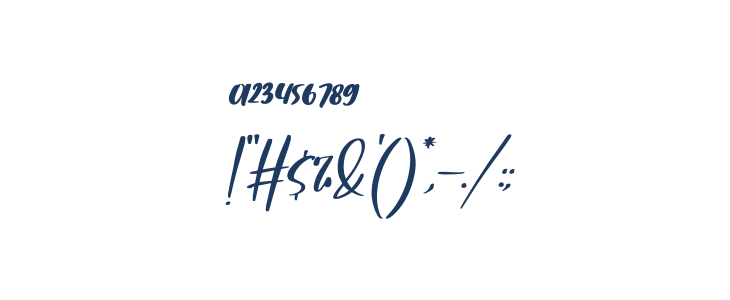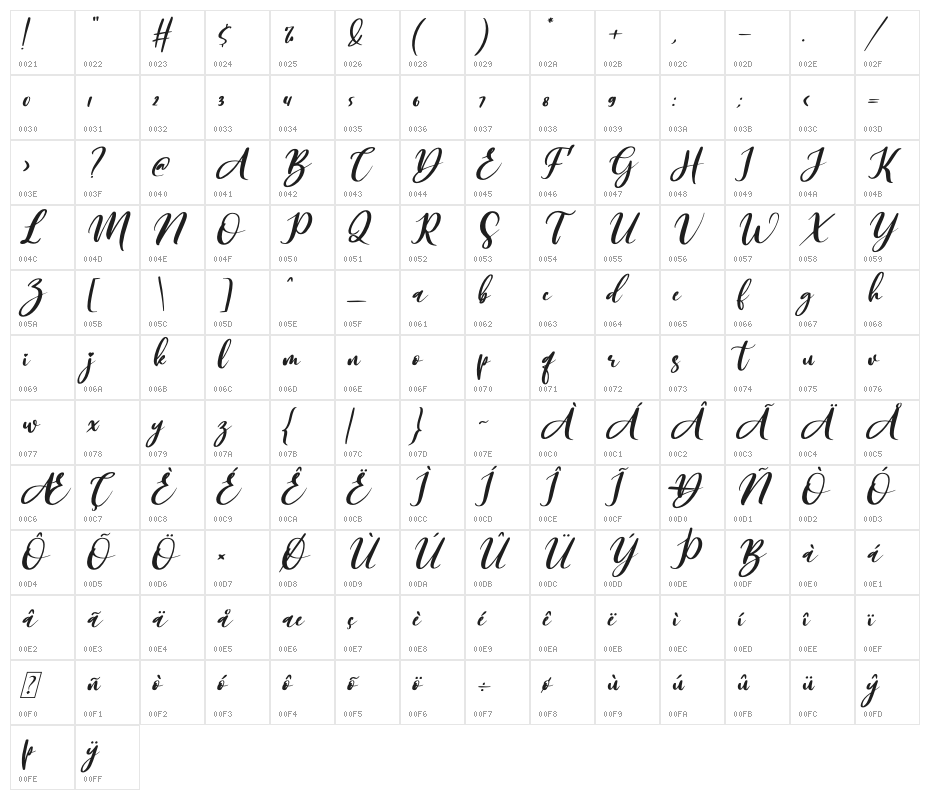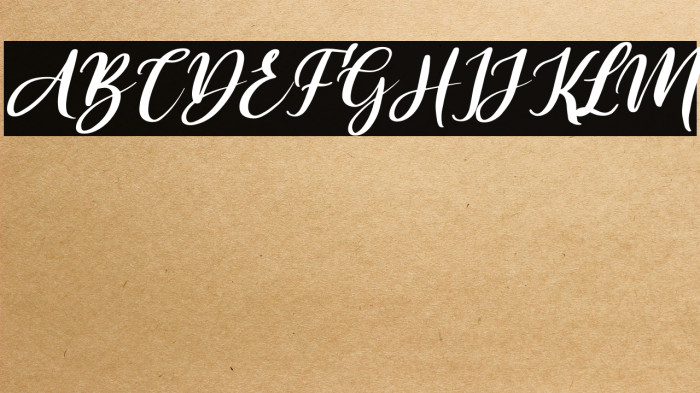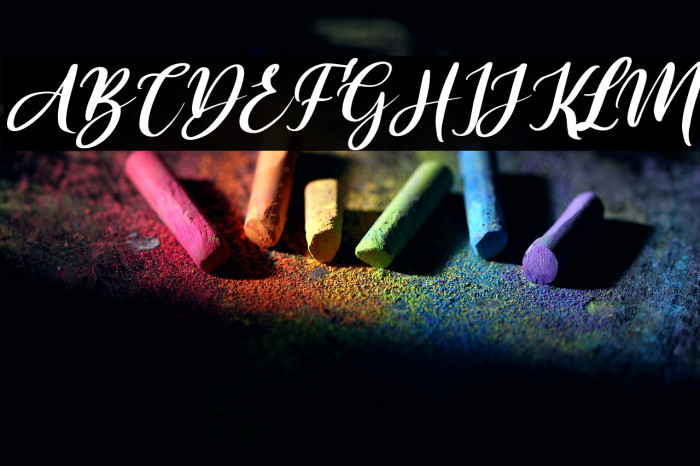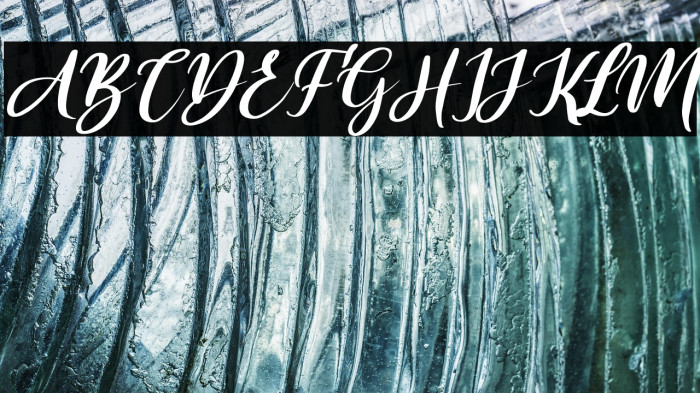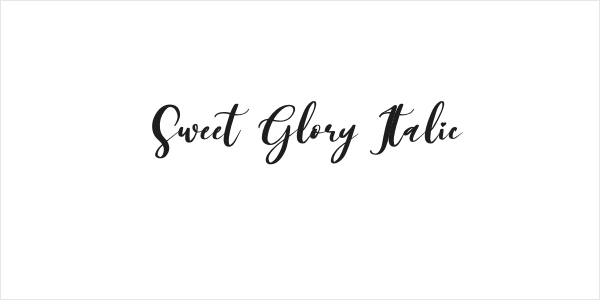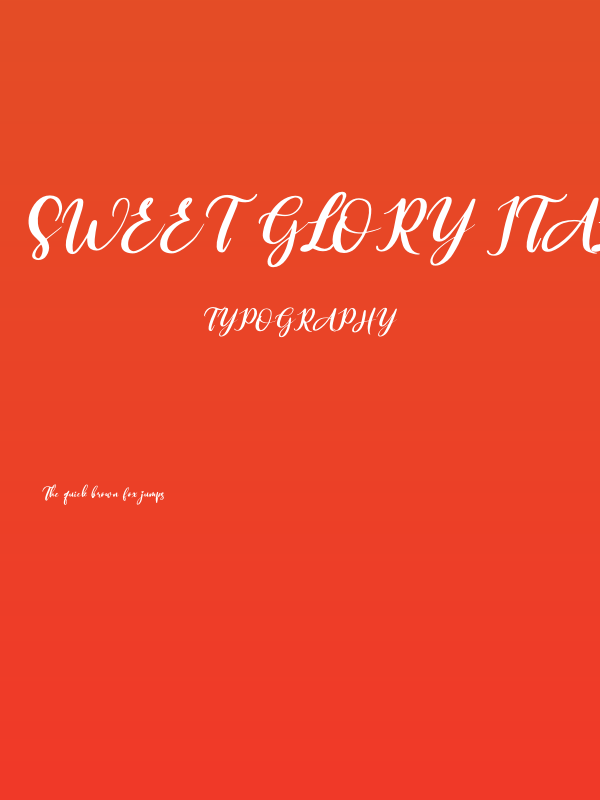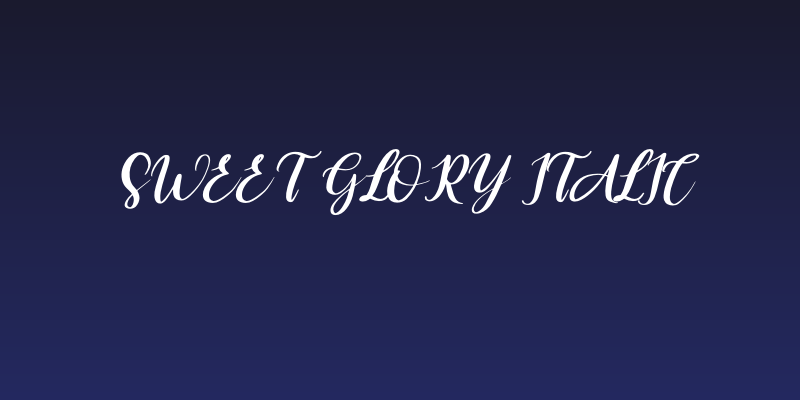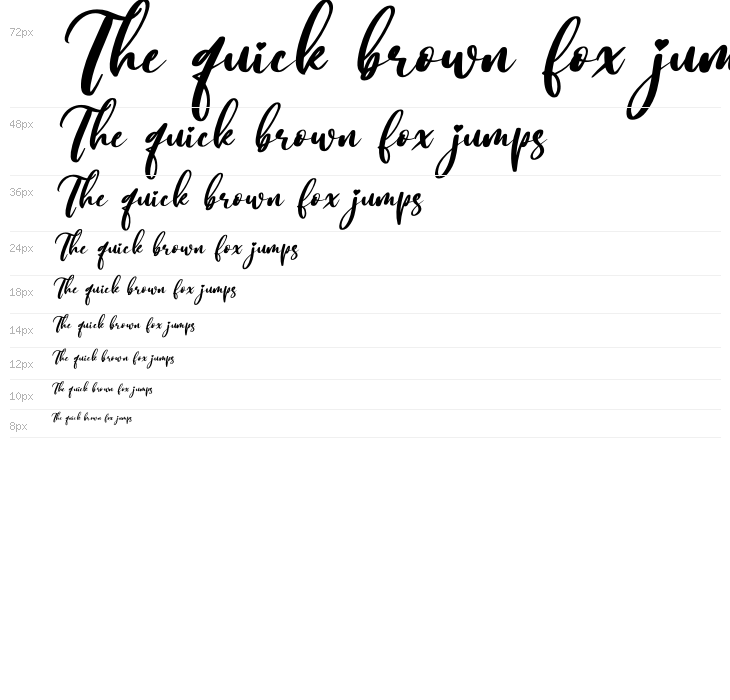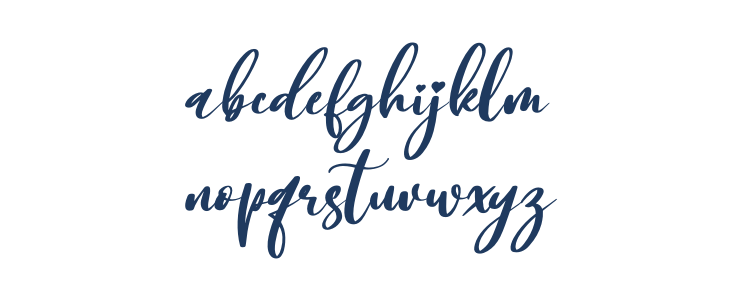
Sweet Glory Italic Font
Sweet Glory Italic Description
This font exudes a sense of elegance and fluidity, characterized by its cursive script style. The letters are interconnected with smooth, flowing strokes that give it a handwritten appearance. The uppercase letters are ornate and slightly larger, providing a graceful contrast to the more compact lowercase letters. The numerals and special characters maintain the same fluid style, ensuring consistency throughout. This font's design is both artistic and legible, making it suitable for a variety of creative applications. The italic slant adds a dynamic feel, enhancing its overall aesthetic appeal.